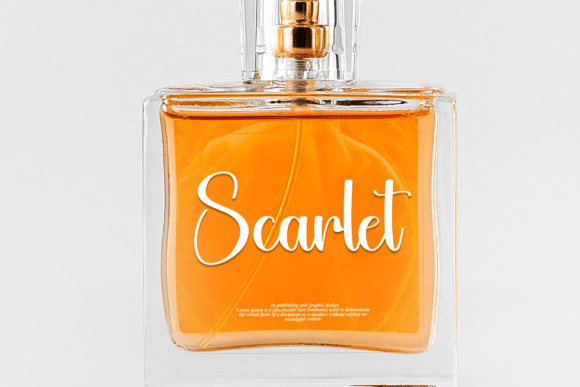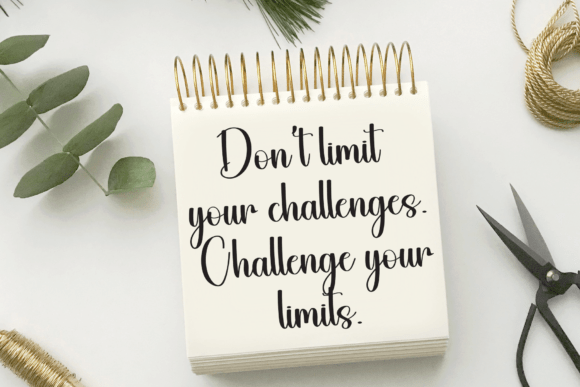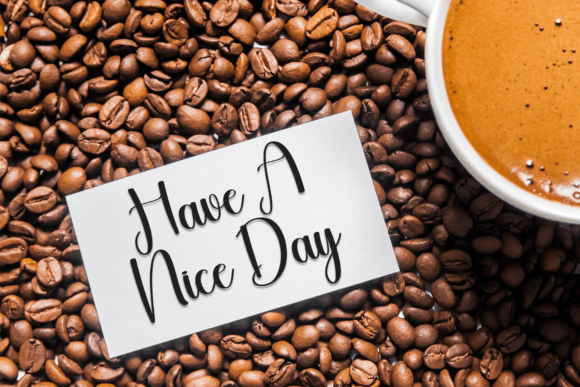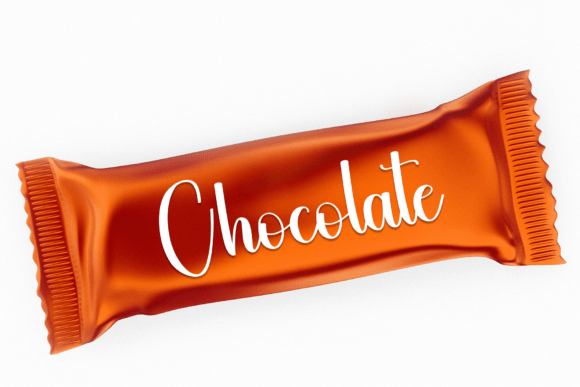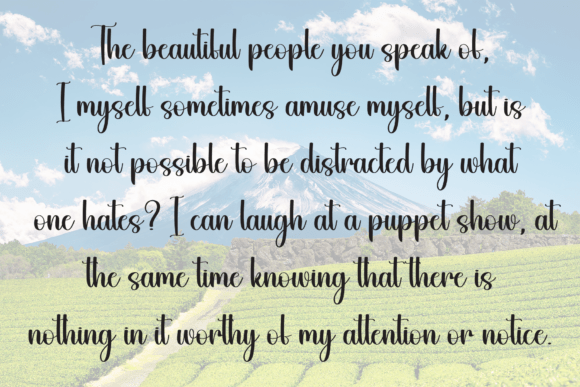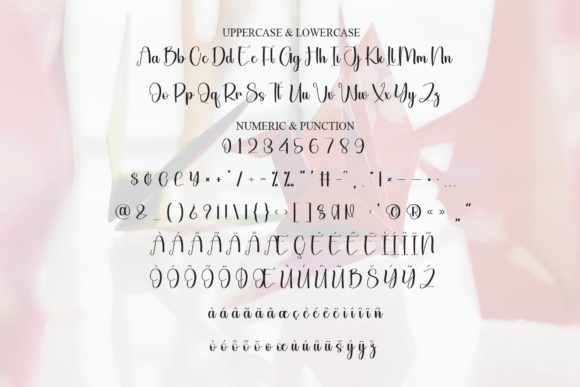
Introduction to Origami Font
As a designer, there’s no greater thrill than seeing your creative vision come to life. It’s that moment when the blank page transforms into a masterpiece, and the right font can make all the difference. I still remember the time I stumbled upon the perfect font for a client’s branding project – the smooth, flowing strokes of the Origami Font immediately caught my attention, and I knew I had found the perfect match.
The Origami Font is more than just a stylish handwritten script – it’s a design resource that radiates elegance and fluidity. With its high-quality, free download available, it’s no wonder designers are flocking to this versatile font for their creative projects. Whether you’re looking to create a stunning invitation or a high-end branding campaign, the Origami Font is sure to add a personal, artistic touch to your design.
- Unique, hand-drawn design aesthetic, perfect for adding a personal touch to creative projects and designs.
Honest Review: Origami Font
I recently came across the Origami Font, and I must say it’s been a great addition to my design resources. As a designer, I’m always on the lookout for unique and creative fonts that can elevate my projects.
What works well about the Origami Font is its high quality and versatility. It comes in a variety of styles and weights, making it perfect for a wide range of creative projects. The font is also available for free download, which is a definite plus. The transparent background option is another feature that I appreciate, as it makes it easy to overlay the font on top of images or other design elements.
The Origami Font is a great design resource for anyone looking to add some creativity to their projects. Here are some of its key features:
- High-quality font with a variety of styles and weights
- Perfect for creative projects, such as branding, packaging, and advertising
Overall, I’m impressed with the Origami Font, and I would definitely recommend it to fellow designers. It’s a great addition to any design resource library, and it’s sure to help take your projects to the next level.
Tips for Getting the Most Out of Origami Font
For the best results, use Origami Font on a high-quality background or texture. You can also experiment with layering and combining the font with other design elements to create unique effects.
Origami Font is perfect for creative projects such as invitations, posters, and social media graphics. You can also use the font to create custom logos, icons, and other visual elements.
Yes, the Origami Font features a transparent background, making it ideal for designs that require a high level of customization and flexibility. This allows you to easily combine the font with other design elements and create unique, eye-catching visual effects.